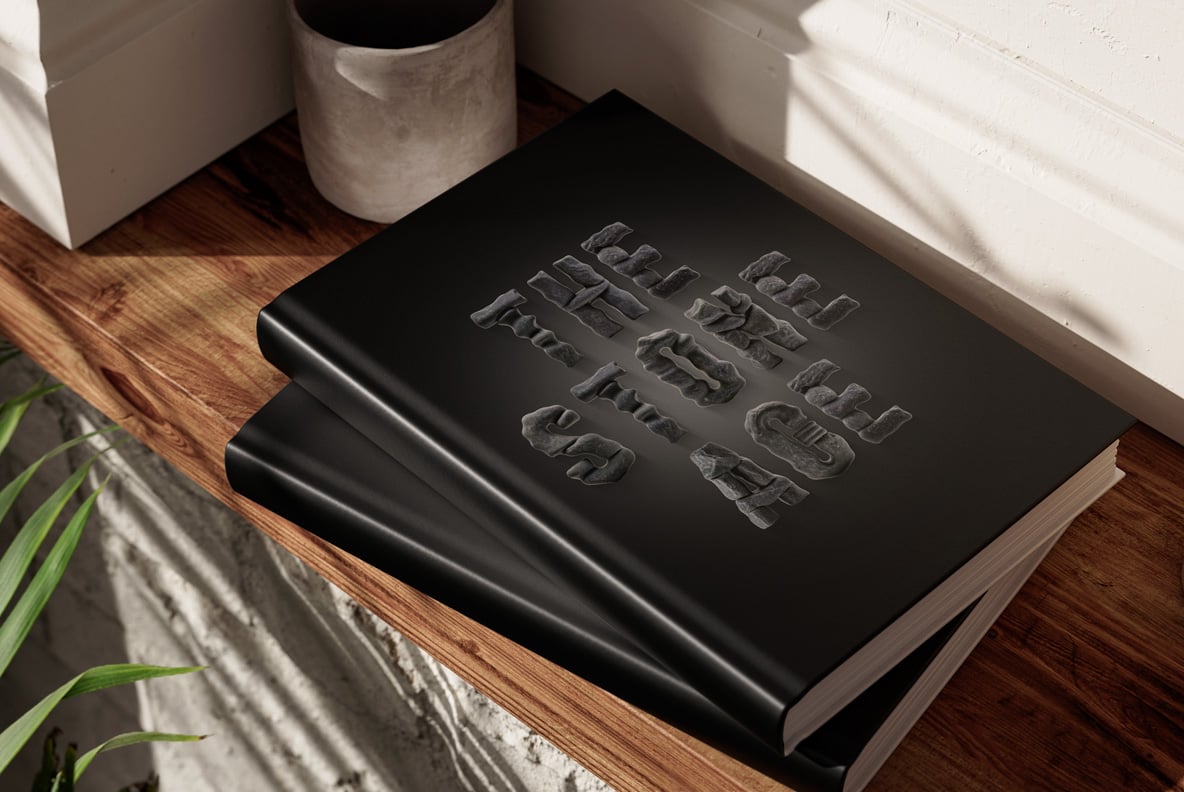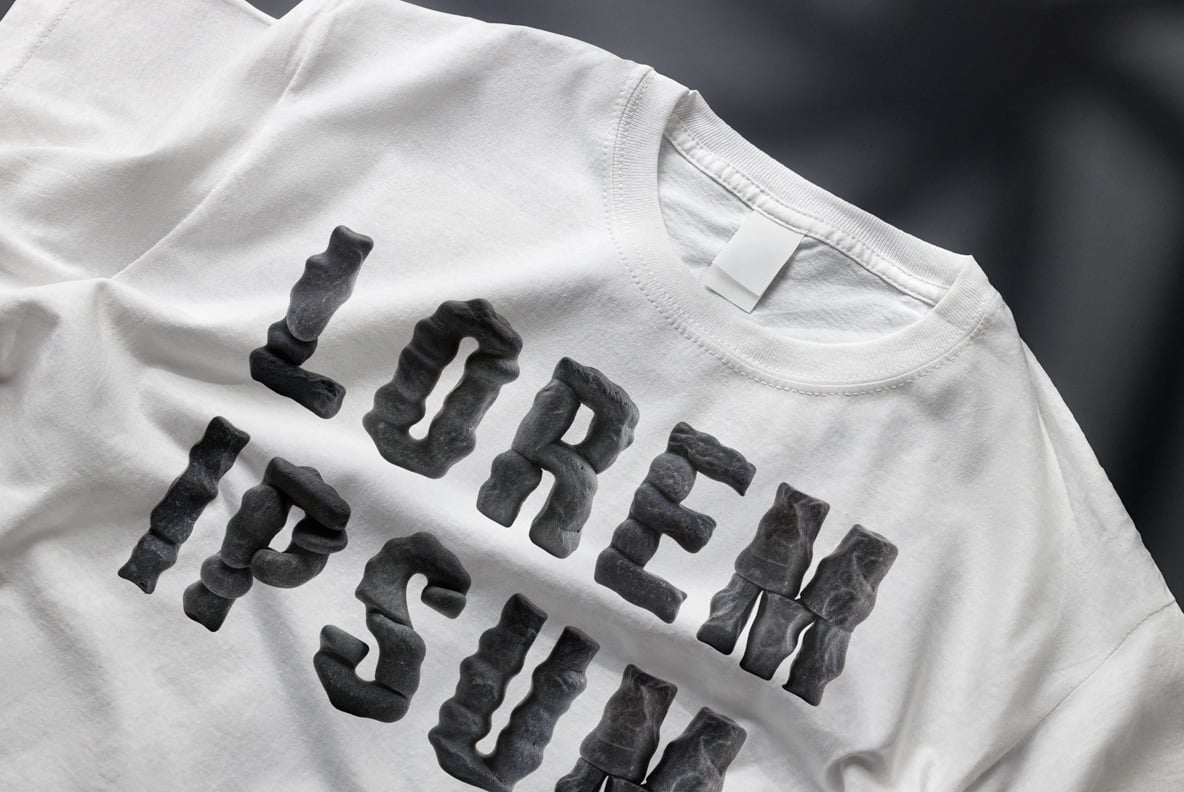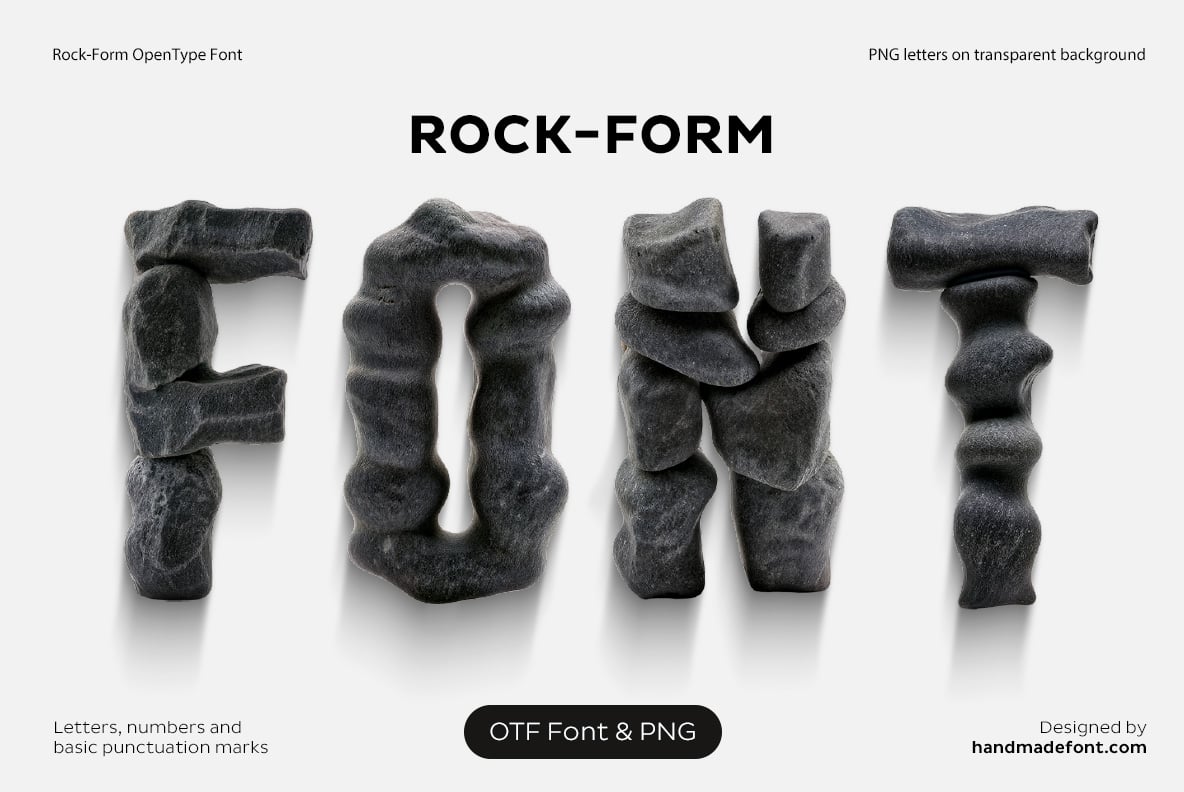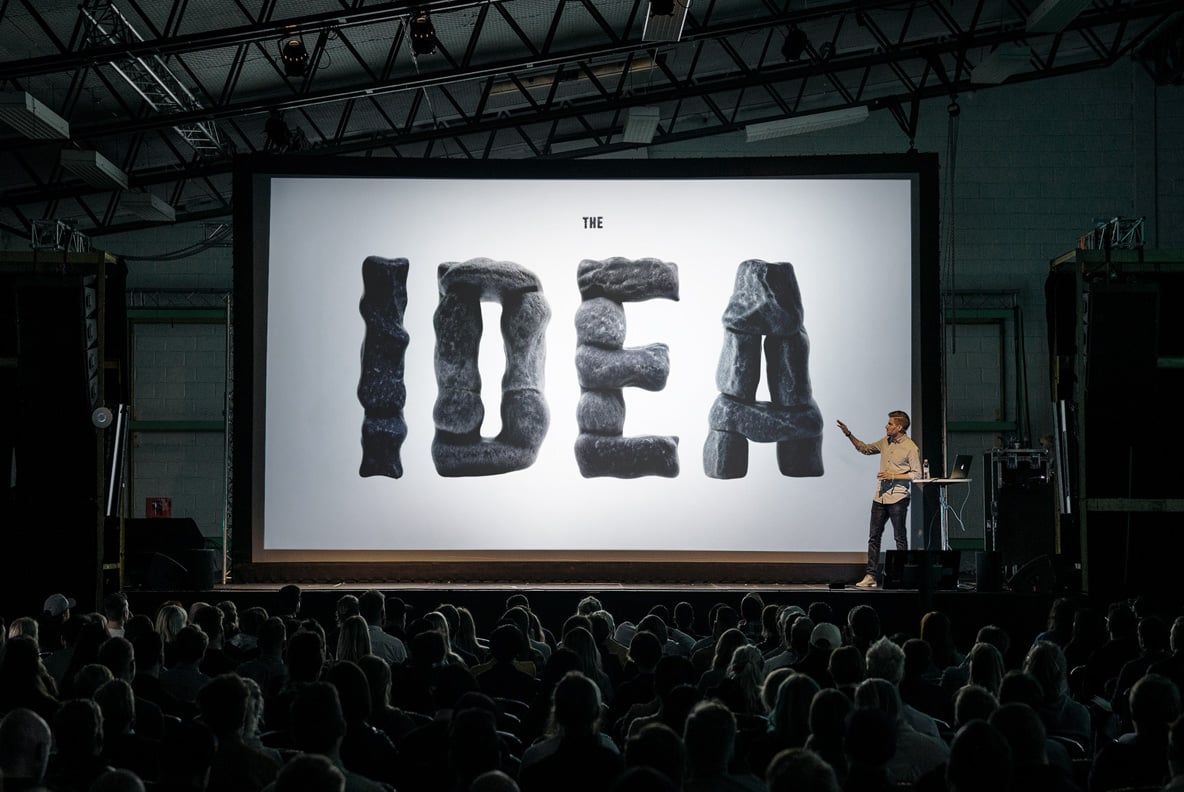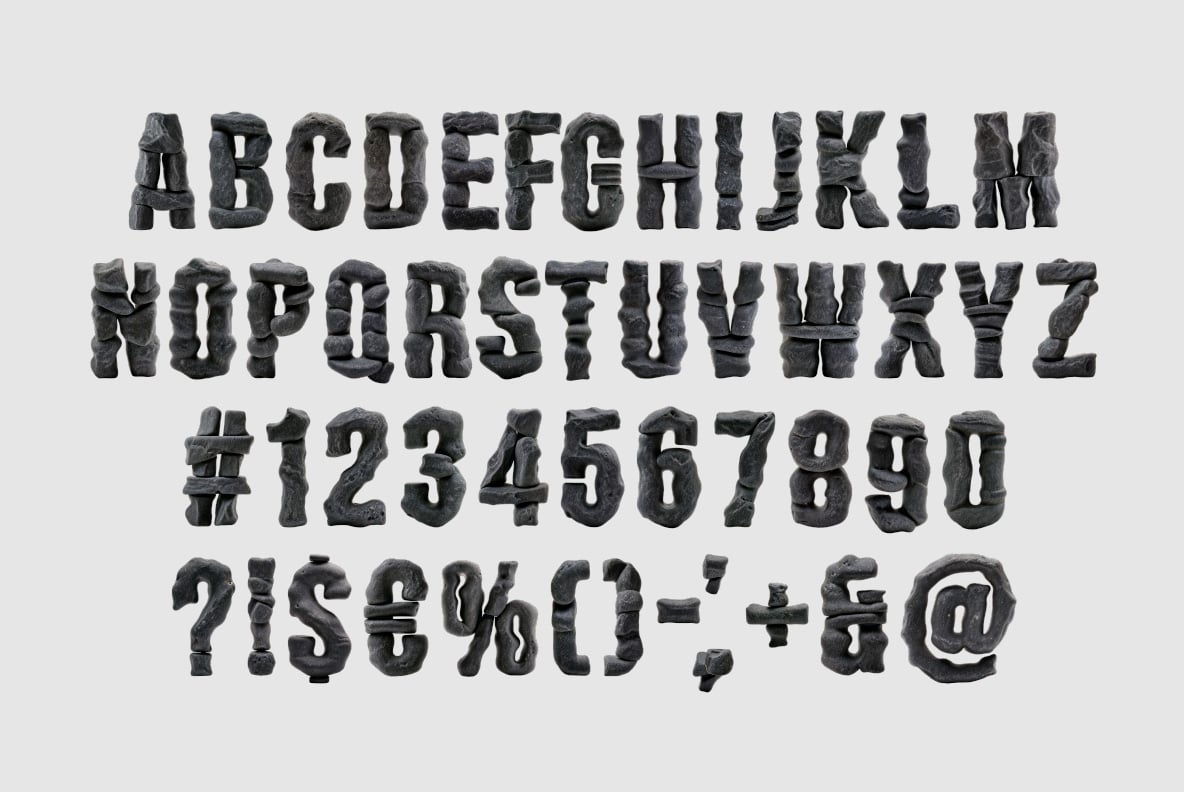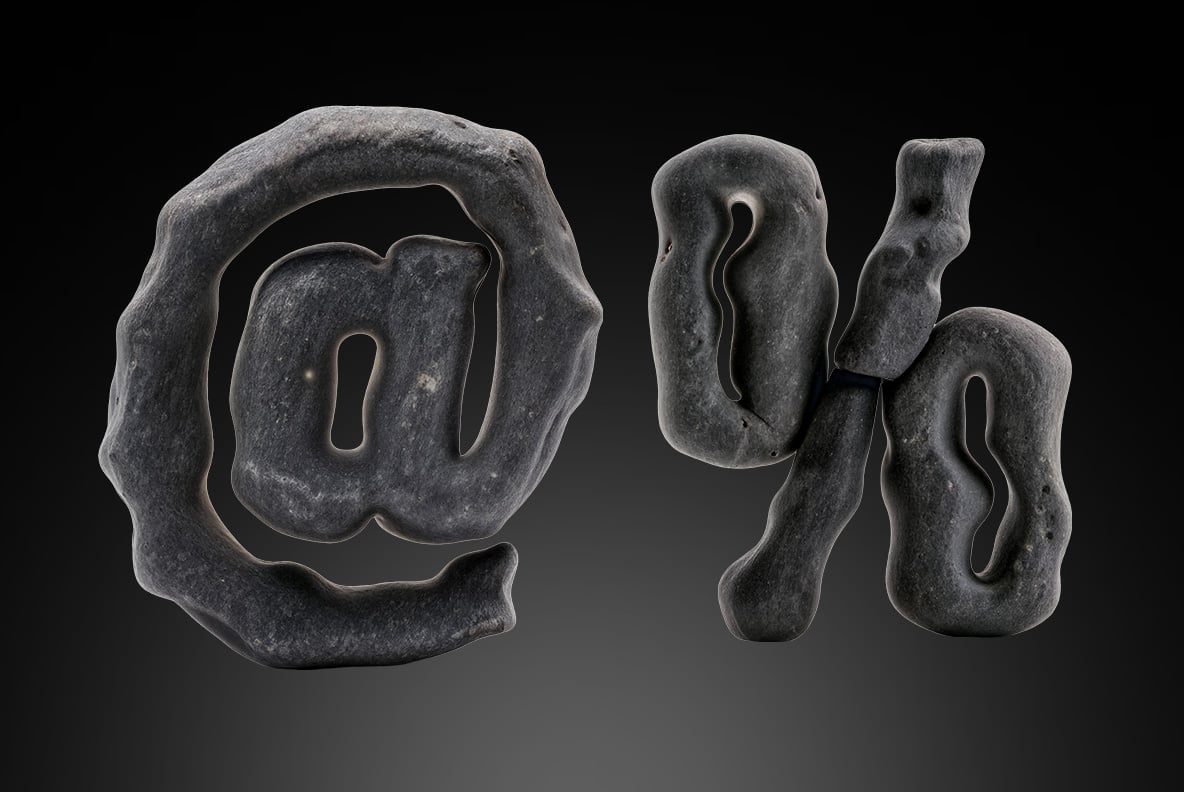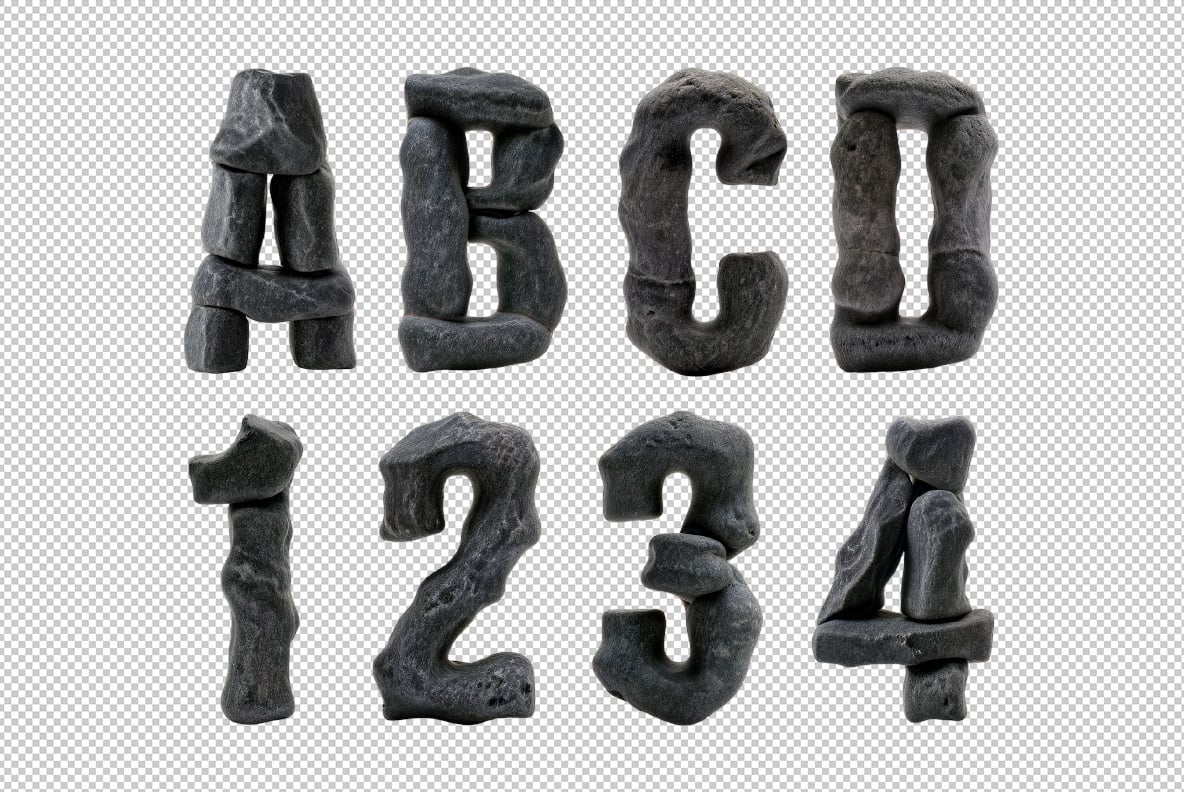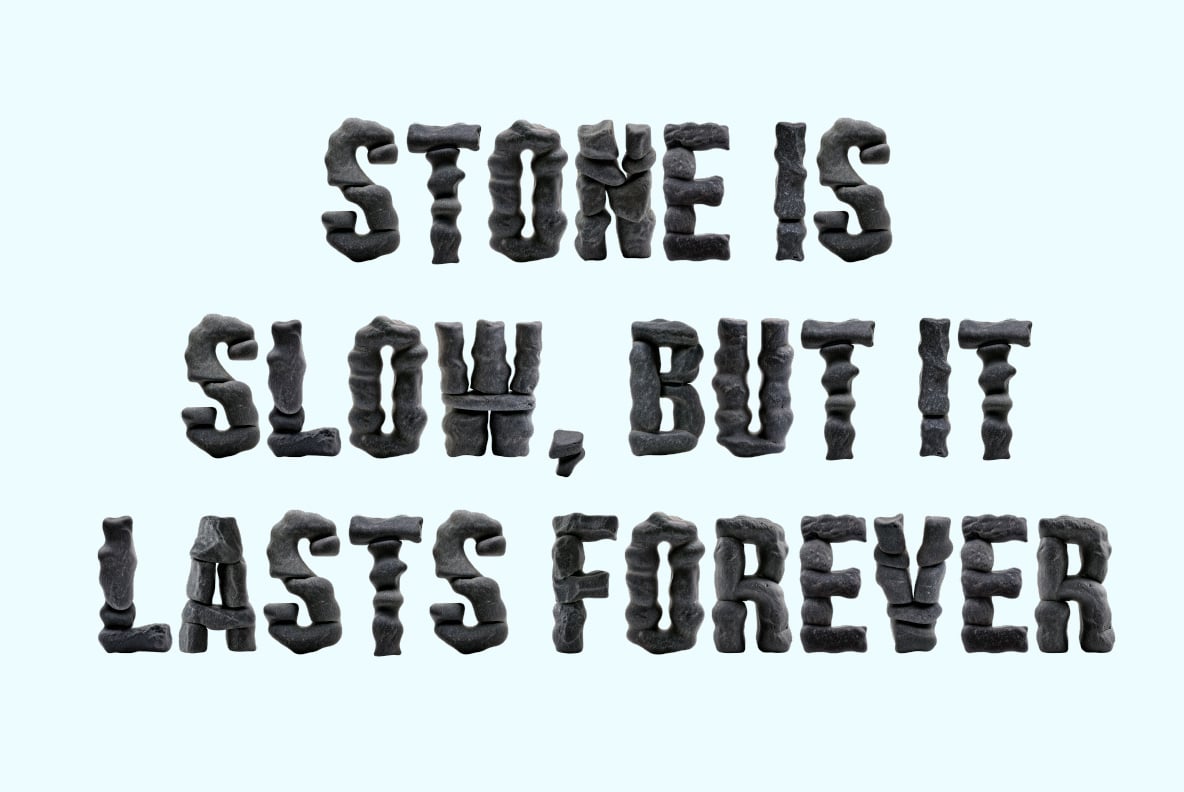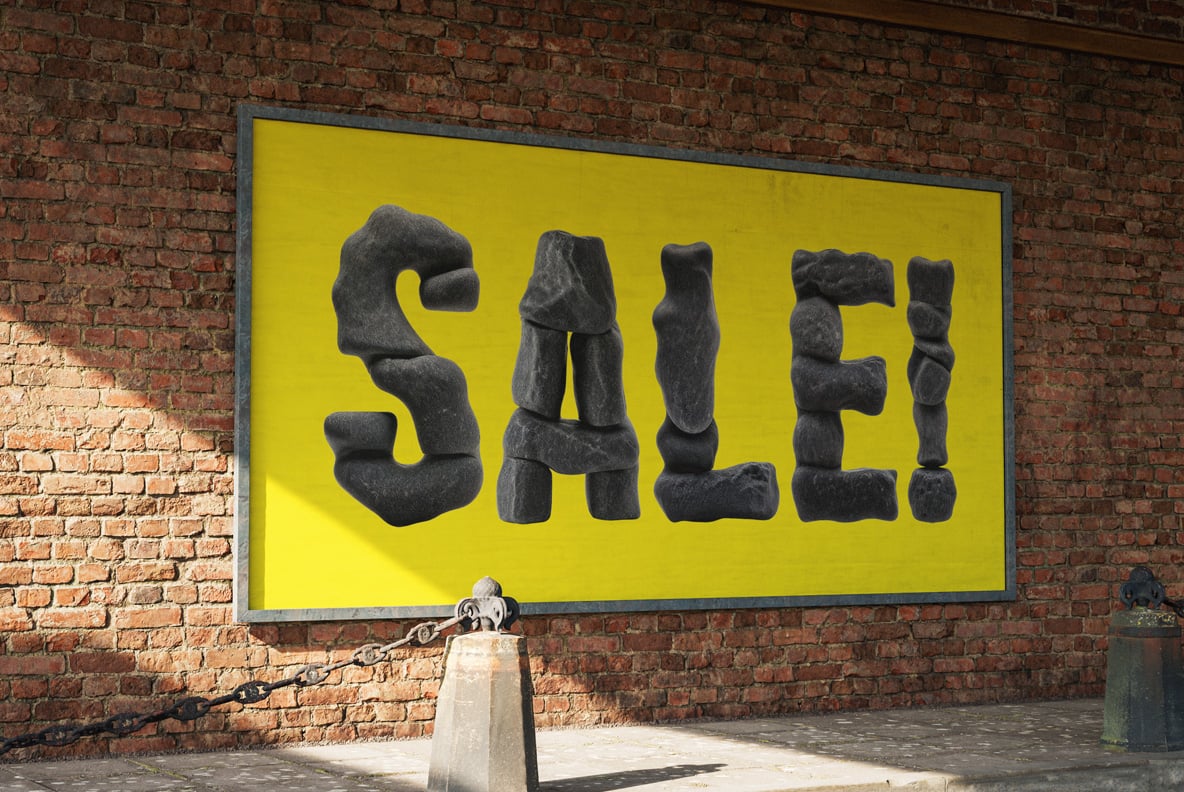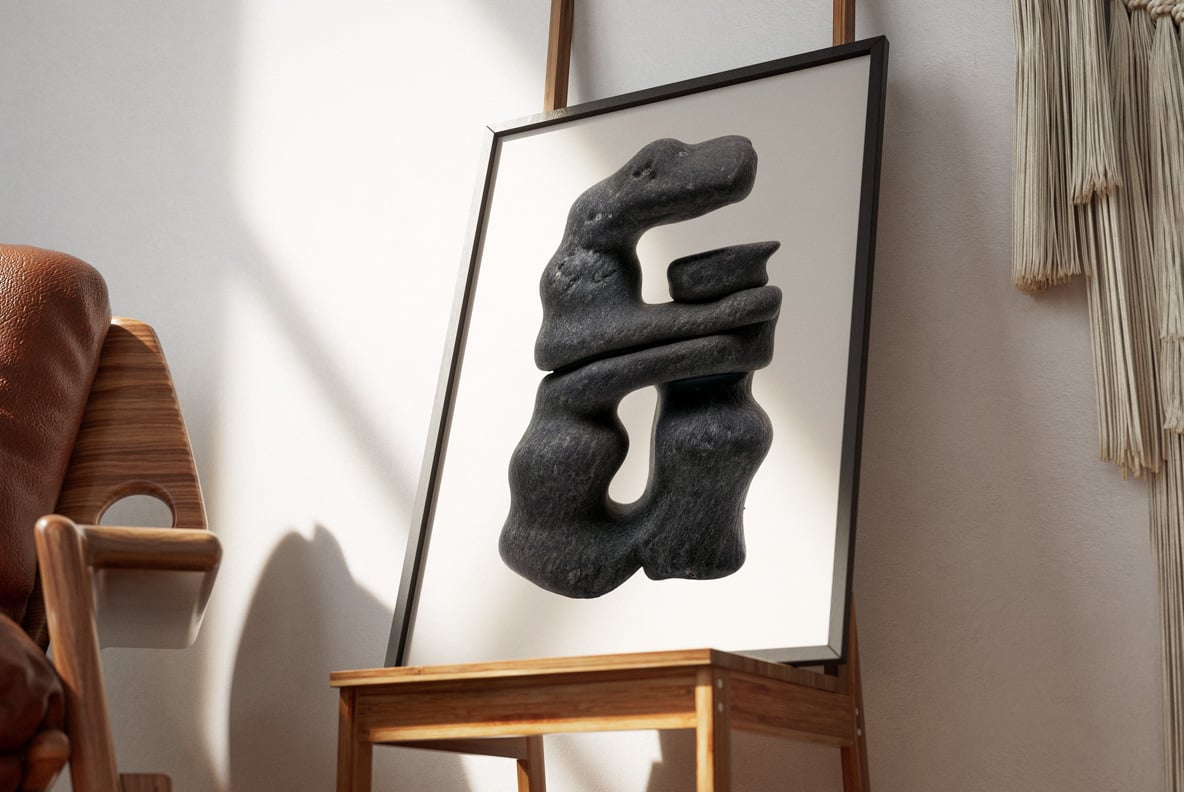
Rock Form Font
Introducing a bold and unique stone-inspired font crafted from rugged, natural rock textures. Each letter and number is sculpted to resemble stacked stones, creating a powerful, earthy aesthetic. This rocky typeface is perfect for projects needing a primitive, hand-carved look with a touch of organic artistry. Ideal for branding, posters, logos, book covers, or any design that demands a strong, grounded visual impact. The stone font blends brutalist charm with natural elements, evoking strength, stability, and timelessness. Whether you're designing for outdoor brands, eco-friendly products, or artistic ventures, this rock font delivers bold character and raw visual energy.